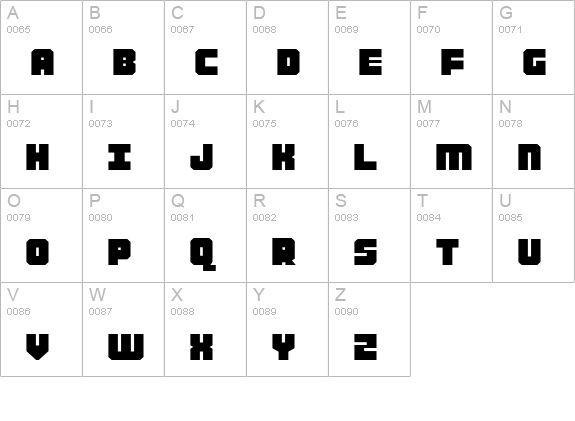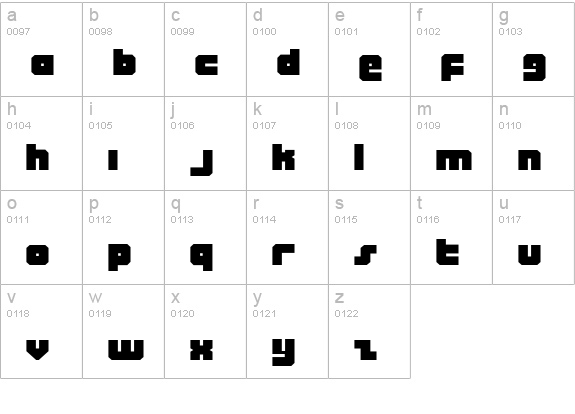
Alpha Taurus Expanded is a distinctive, extended-width variant in the Alpha typeface family \xE2\x80\x94 well suited to design and typography projects.
Alpha Taurus Expanded is a stunning display font that exudes elegance and sophistication. With its bold and modern design, this typeface is perfect for making a statement in your designs. The expanded letterforms give it a unique and eye-catching look that will surely captivate your audience. What makes Alpha Taurus Expanded even more appealing is that it is available for free download at FontsMarket.com. This means that you can easily access this beautiful font and use it in your projects without any cost. Whether you're working on branding, advertising, posters, or any other design project, Alpha Taurus Expanded will add a touch of style and professionalism. Don't miss out on the opportunity to enhance your designs with this elegant and versatile font. Download Alpha Taurus Expanded for free at FontsMarket.com and elevate your creative projects to the next level!